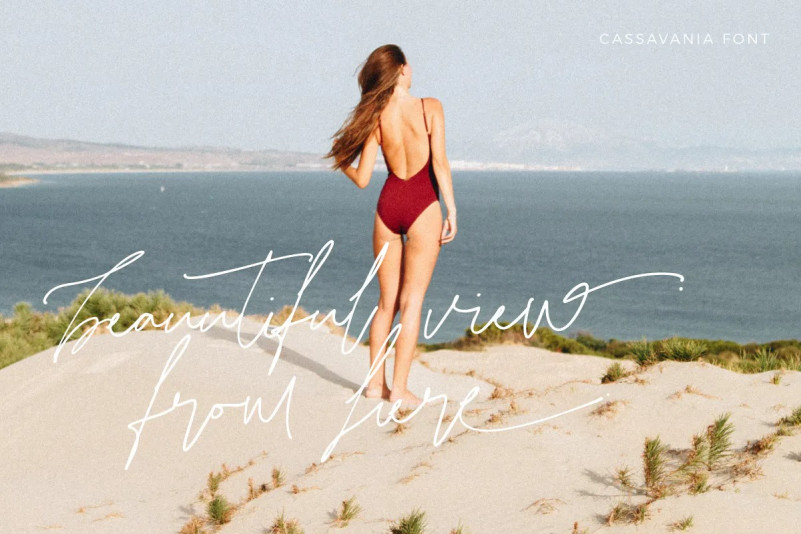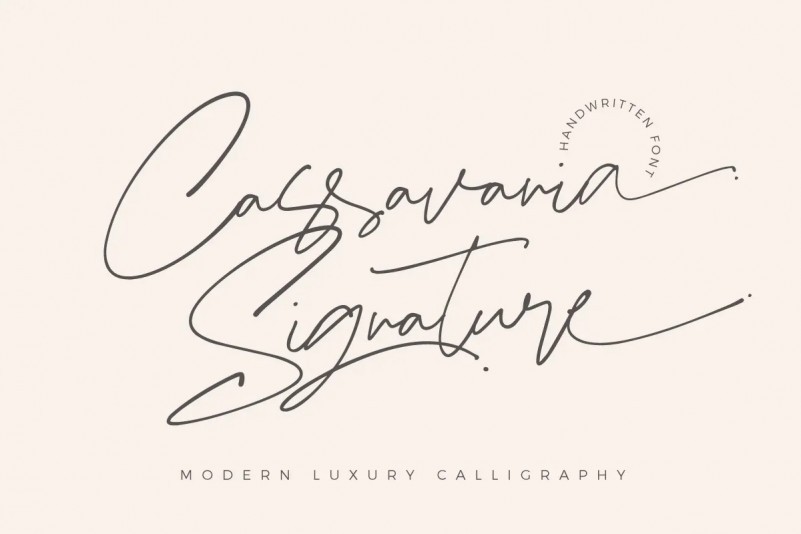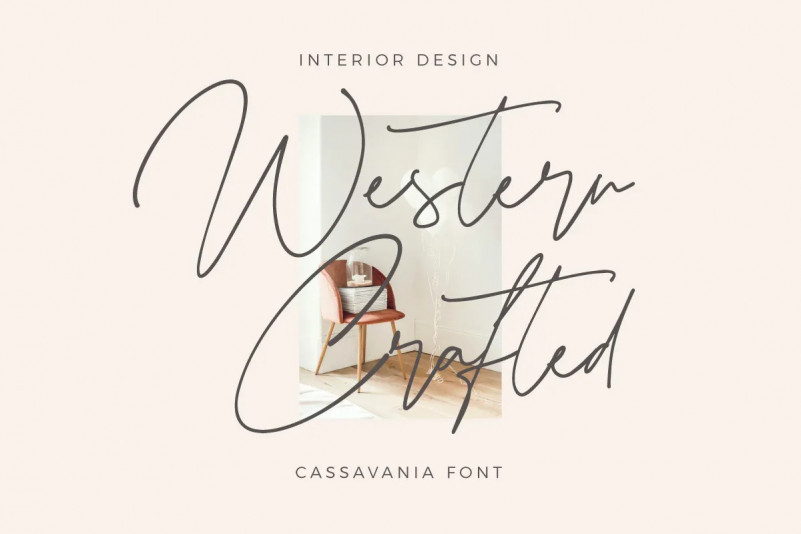
Cassavania Signature Font
Cassavania | Beauty Font Elegant with a calligraphy style, So beautiful on invitation like greeting cards, branding materials, business cards, quotes, posters, and more!